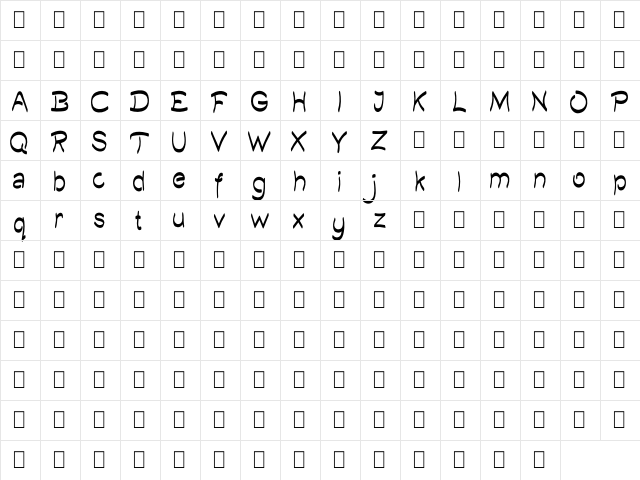
Quilty Demo Regular Font Preview
Quilty Demo Regular
Quilty Demo Regular Font Details
Design Context for Quilty Demo Typeface
Quilty Demo is a composed and adaptable typeface that performs quietly and consistently across a wide range of design contexts.